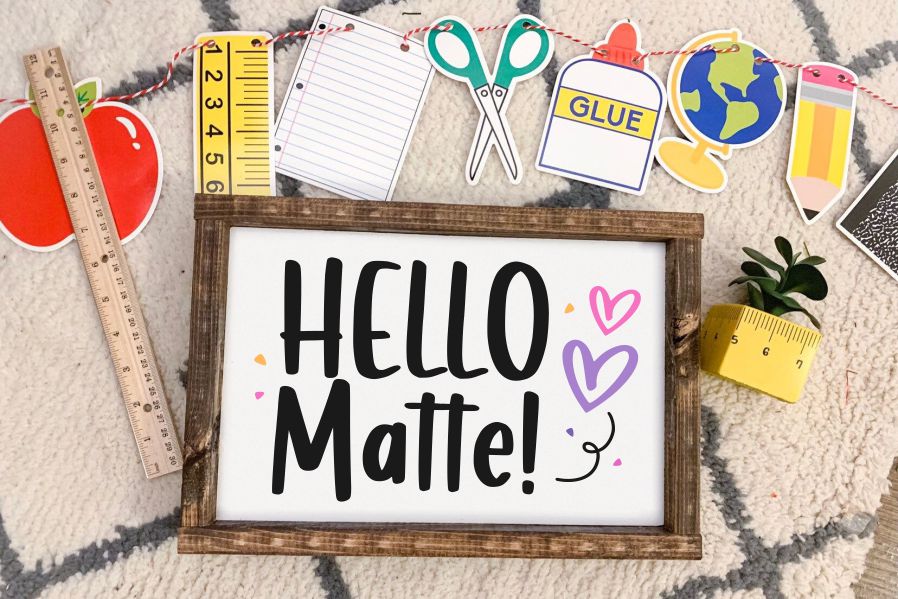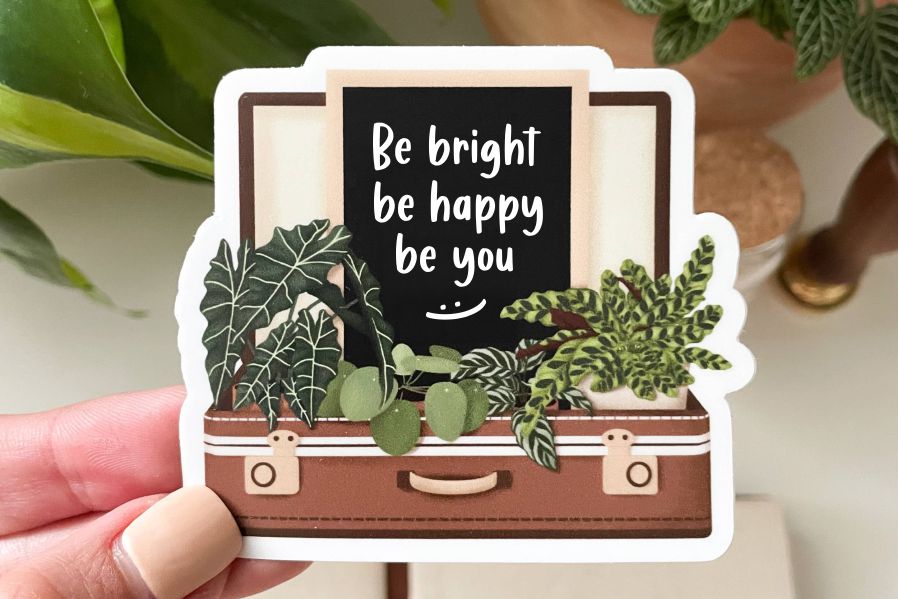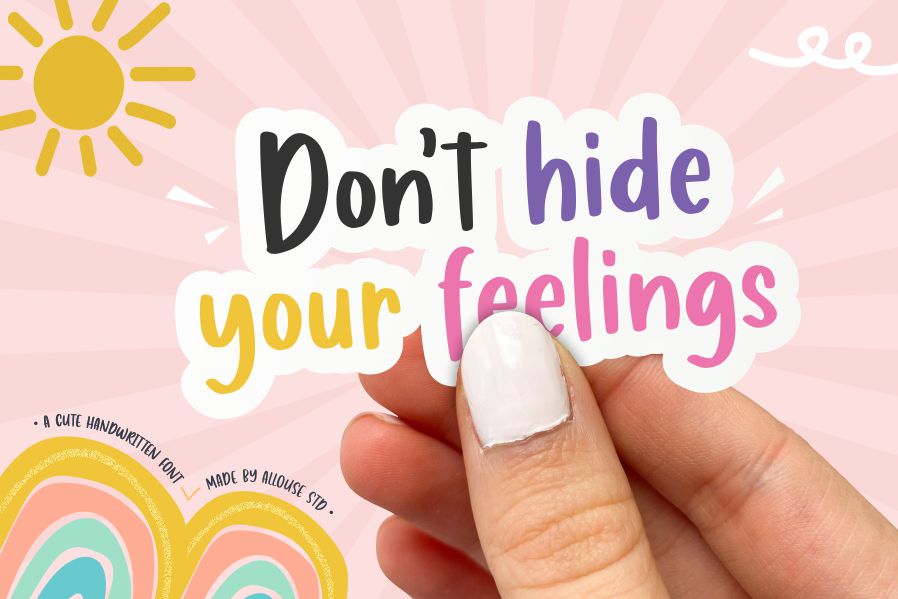
Magic Wishful Font
Magic Wishful Script Font is a fun and quirky handwritten font. Whether you’re using it for crafts, digital design, presentations, or making greeting cards, this font has the potential to become your favorite go-to font, no matter the occasion!